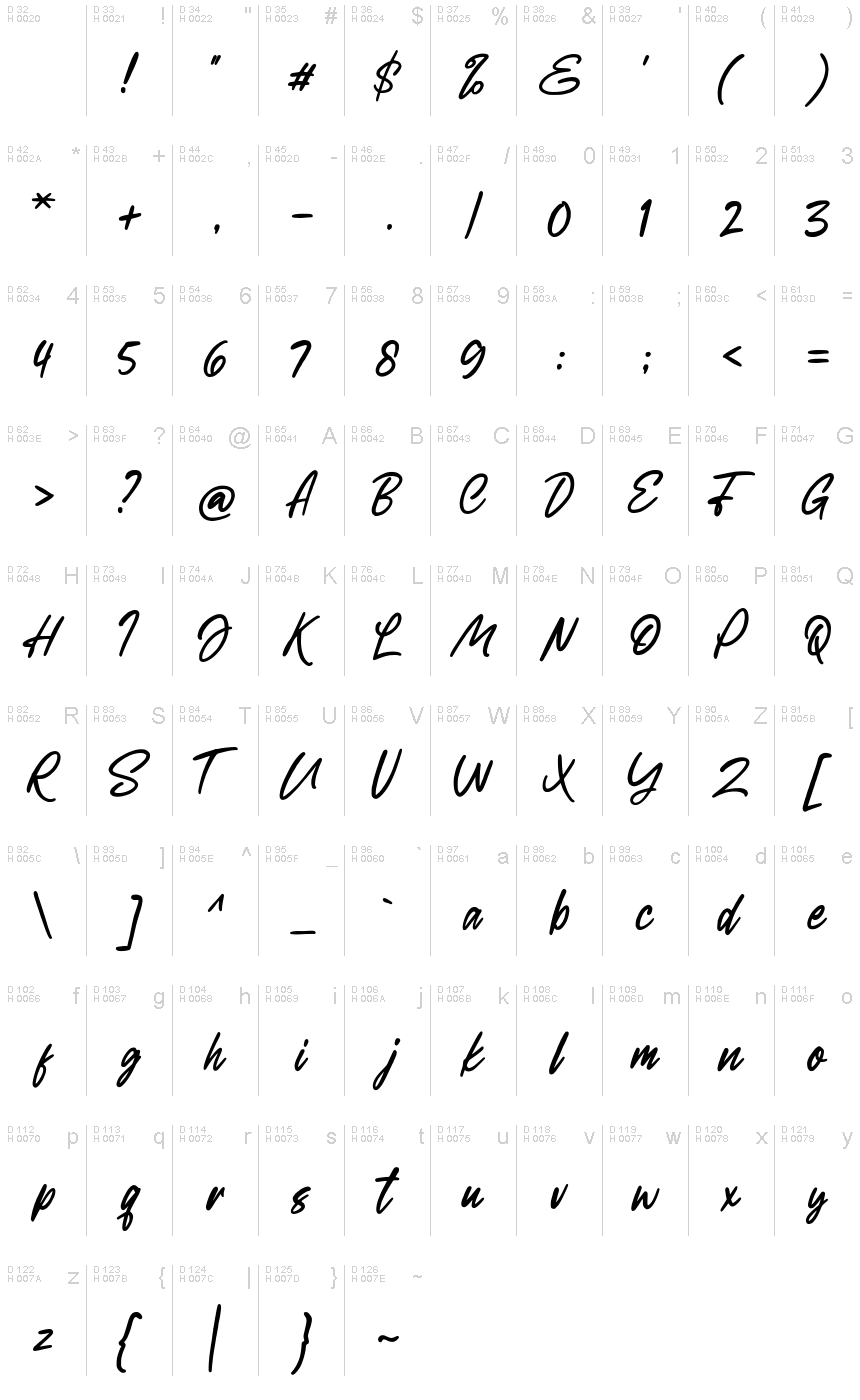
HeadmistaScript
Headmista Script, a creation by Tebaltipis Studio, is a handwritten font that exudes personal charm and elegance. With its fluid strokes and condensed letters, this font encapsulates the artistry of traditional calligraphy while maintaining a modern twist. Its distinctive flow adds a touch of sophistication to any design, making it perfect for invitations, branding, and editorial work where personality and uniqueness are key.
The delicate balance of its cursive appeal makes Headmista Script ideal for projects that require an intimate yet polished look. From bespoke stationery to upscale packaging, this font is versatile enough to elevate the visual narrative of various design endeavors with its handwritten allure.